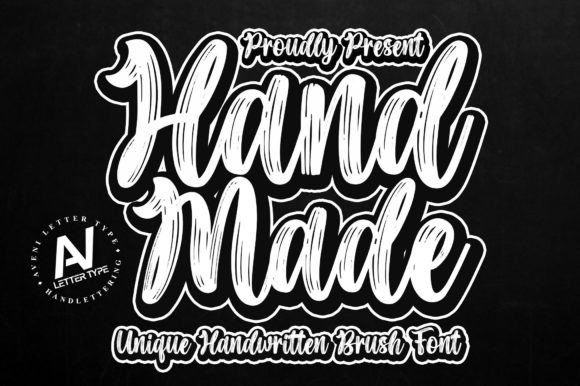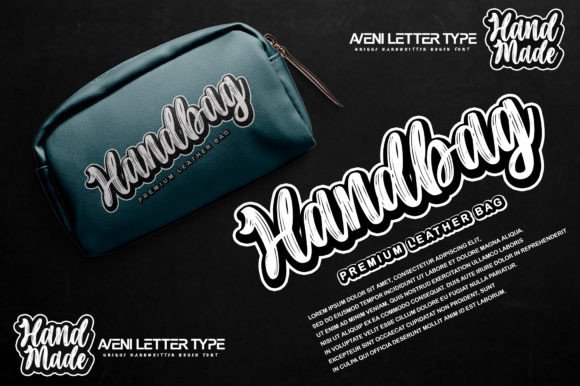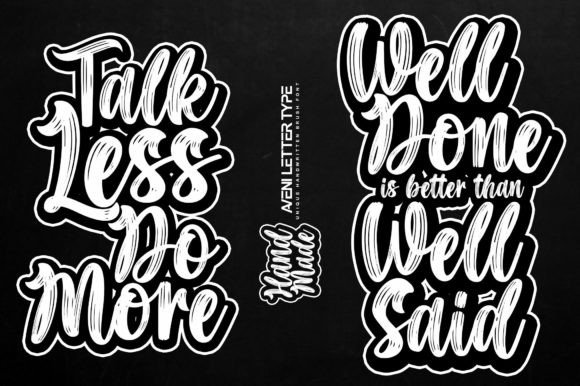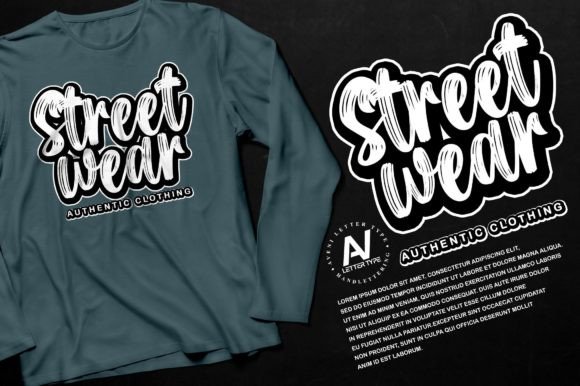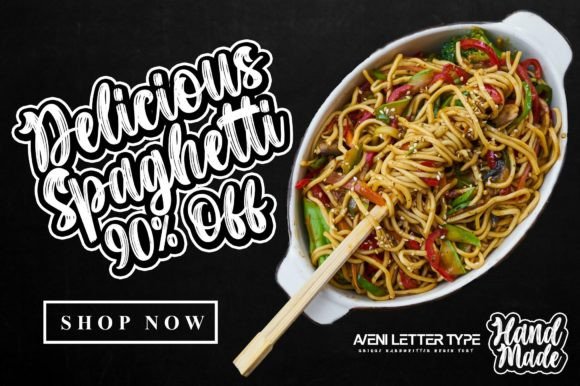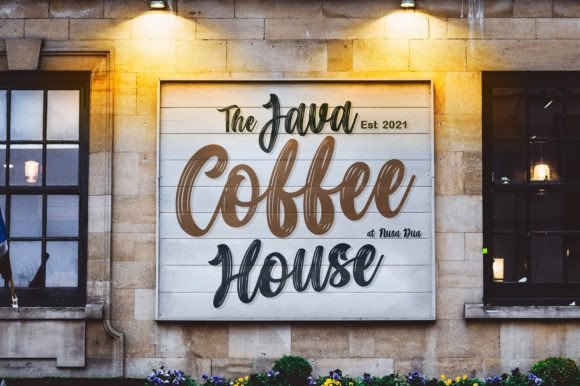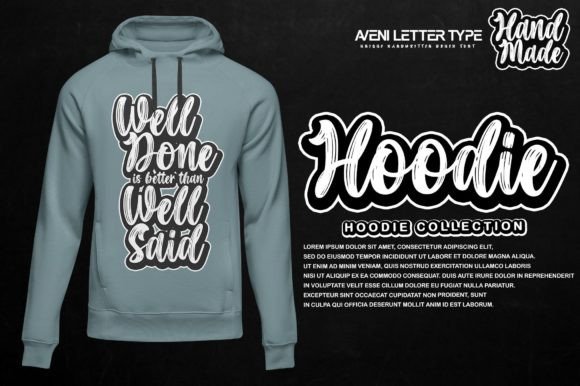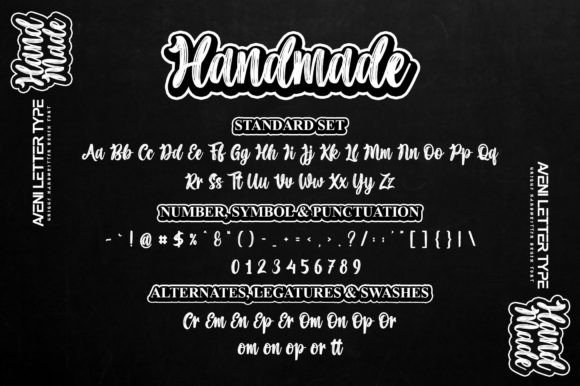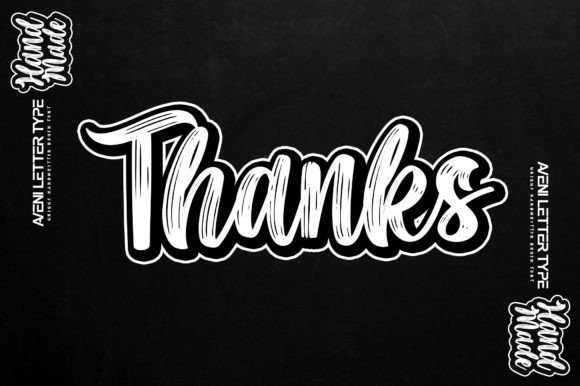
“Handmade” is a unique handwritten script font that effortlessly combines style with brush strokes, boasting a meticulously crafted kerning for a neat and polished appearance. Designed by experts, this font is tailored to make your creations look truly amazing.
The font’s versatility makes it well-suited for a variety of creative ideas, particularly excelling in apparel branding, daily quotes, tote bag or handbag branding, product packaging, headers, posters, merchandise, social media posts, and greeting cards. Its stylish and handwritten charm adds a touch of authenticity to your designs, making them visually appealing and engaging.
The carefully crafted kerning ensures that the characters are neatly arranged, contributing to the overall polished look of the font. Whether used in small details or larger design elements, “Handmade” maintains its clarity and readability, ensuring a seamless and visually pleasing result.
The PUA encoding is a notable feature, granting easy access to a plethora of amazing glyphs and ligatures. This makes it convenient for users to explore and utilize the font’s intricate details, enhancing the creative possibilities in their design work.
In essence, “Handmade” is more than just a font; it’s a design tool that marries style and functionality. Embrace its unique handwritten script, impeccable kerning, and versatile applications. Whether you’re working on branding, packaging, or social media content, let “Handmade” be the element that adds a touch of authenticity and creativity to your designs. With its broad range of applications and PUA encoding, this font is poised to elevate your creative projects and bring your ideas to life with a stylish and polished flair.